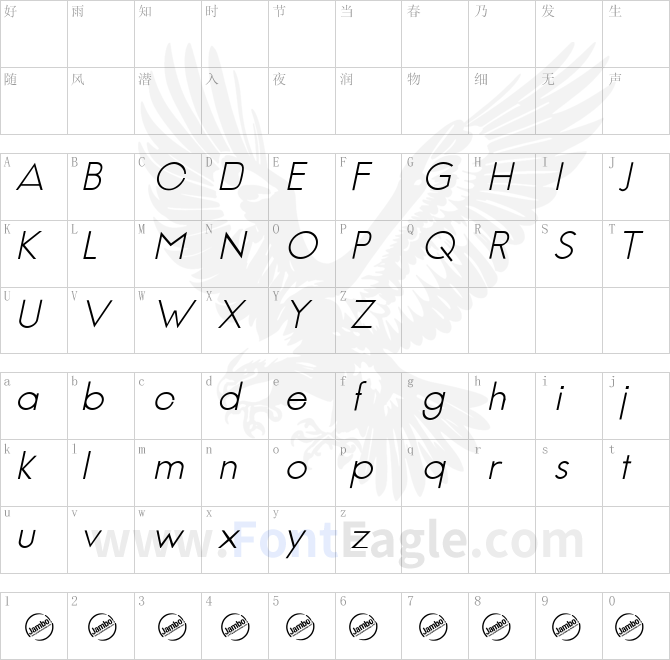
- Font name:Jambetica
- Font Subfamily ID:Jambo!Fonts&Design: Jambetica Light Italic: 2014
- Font Full Name:Jambetica-LightItalic
- Postscript:Jambetica-LightItalic